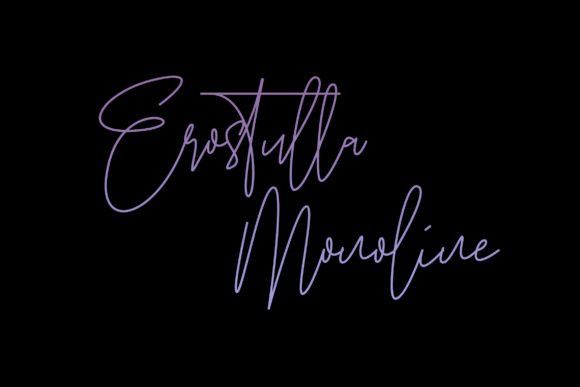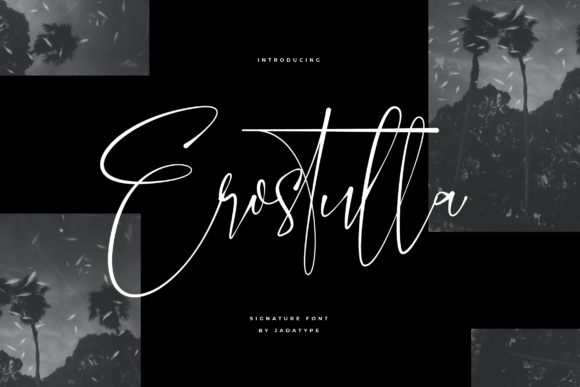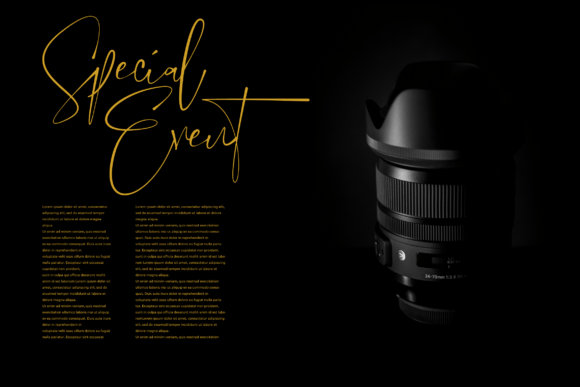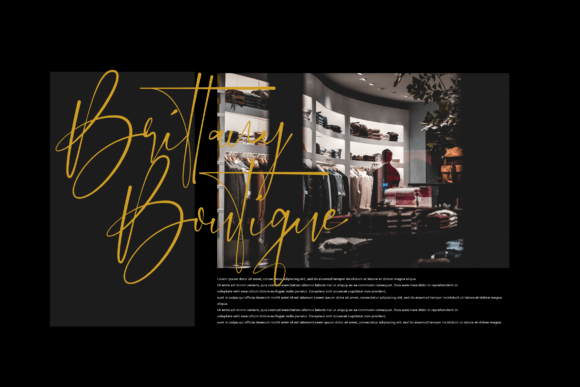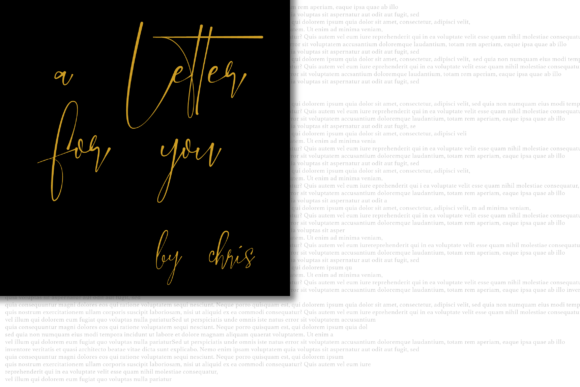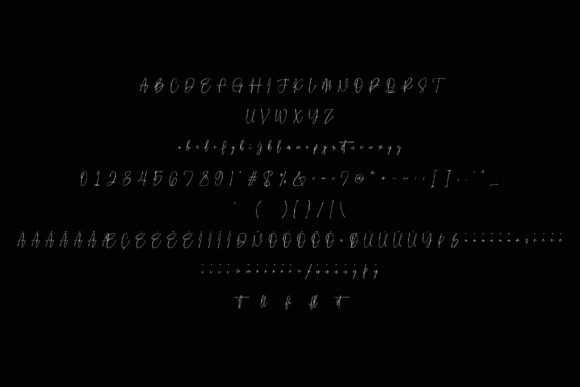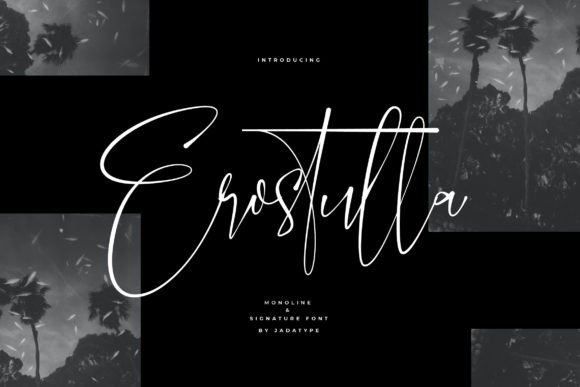
Erostulla Font: Elevate Your Designs with a Signature Style
Are you a designer or crafter looking for a unique and stylish font to elevate your creative projects? Look no further than Erostulla Font, a script font that exudes a signature style perfect for a variety of applications. In this article, we’ll dive into the features and benefits of Erostulla Font, and explore how it can enhance your designs for t-shirts, branding, social media, and more.
What is Erostulla Font?
Erostulla Font is a beautifully crafted script font that boasts a distinctive signature style. Its elegant and flowing lines make it perfect for adding a touch of sophistication to your designs. Whether you’re creating a logo, t-shirt design, or social media post, Erostulla Font is sure to make your project stand out.
Key Features of Erostulla Font
- Standard English letters and characters: Erostulla Font contains a comprehensive set of standard English letters, numbers, and punctuation marks, making it easy to use for a wide range of design projects.
- Multilingual support: In addition to standard English characters, Erostulla Font also includes several accents that support multilingualism, allowing you to create designs for a global audience.
Use Cases for Erostulla Font
Erostulla Font is a versatile font that can be used for a variety of design projects, including:
- T-shirt designs: Add a touch of elegance to your t-shirt designs with Erostulla Font’s signature style.
- Branding and logos: Create a lasting impression with Erostulla Font’s unique and sophisticated style, perfect for logos and branding materials.
- Social media graphics: Elevate your social media presence with Erostulla Font’s stylish and eye-catching designs.
- Stationery and invitations: Add a touch of class to your stationery and invitations with Erostulla Font’s elegant script style.
Benefits of Using Erostulla Font
So why choose Erostulla Font for your design projects? Here are just a few benefits:
- Unique and distinctive style: Erostulla Font’s signature style sets it apart from other fonts, ensuring your designs stand out from the crowd.
- Easy to use: With its comprehensive character set and compatibility with popular design applications, Erostulla Font is easy to use and integrate into your workflow.
- Multilingual support: With Erostulla Font’s multilingual support, you can create designs that reach a global audience.
| Font Name | Erostulla Font |
| Author | jadatype |
In conclusion, Erostulla Font is a stylish and versatile script font that is perfect for designers and crafters looking to elevate their creative projects. With its signature style, comprehensive character set, and compatibility with popular design applications, Erostulla Font is a great choice for a wide range of design projects. Whether you’re creating t-shirt designs, branding materials, social media graphics, or stationery, Erostulla Font is sure to add a touch of elegance and sophistication to your designs.